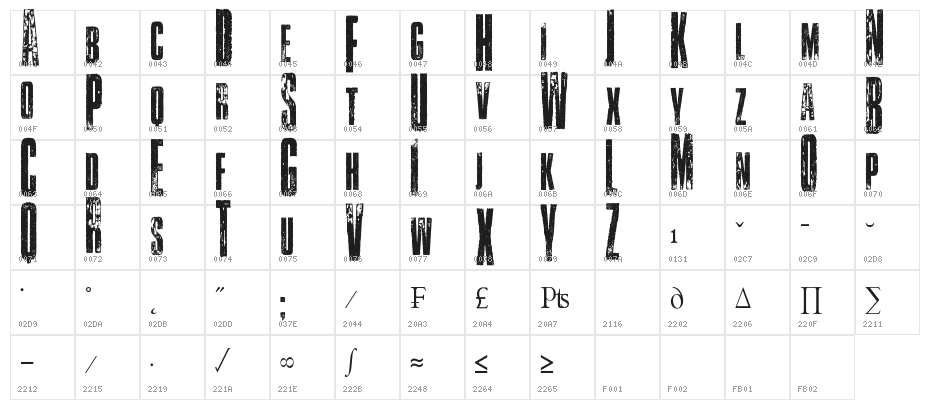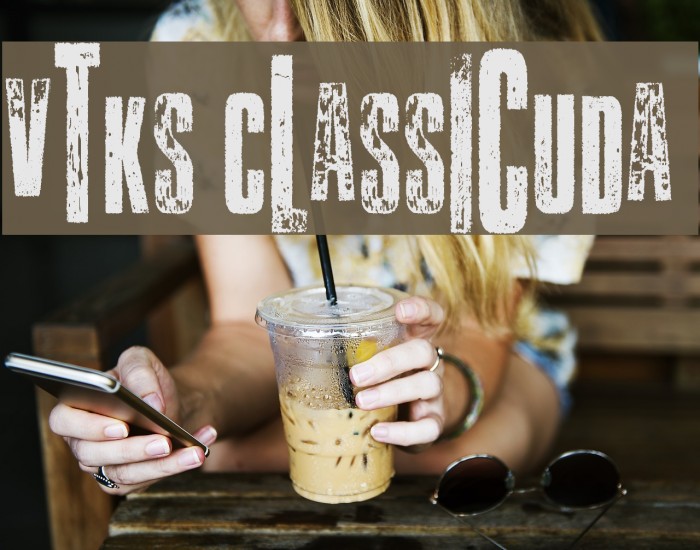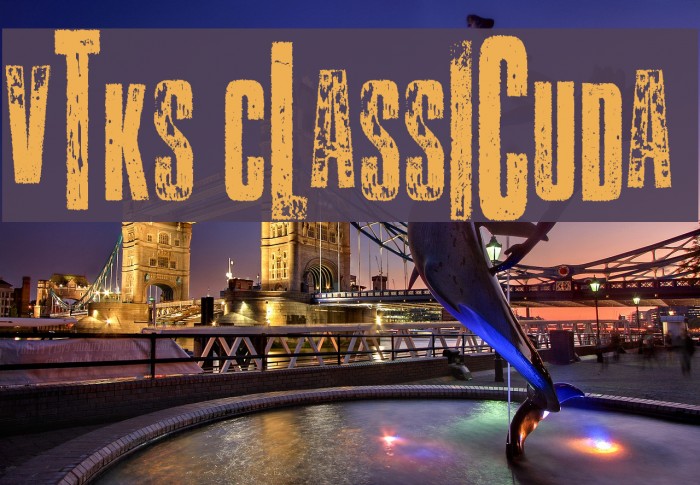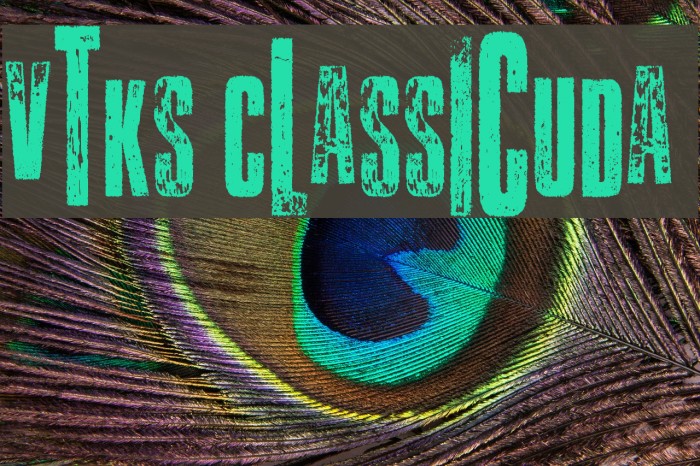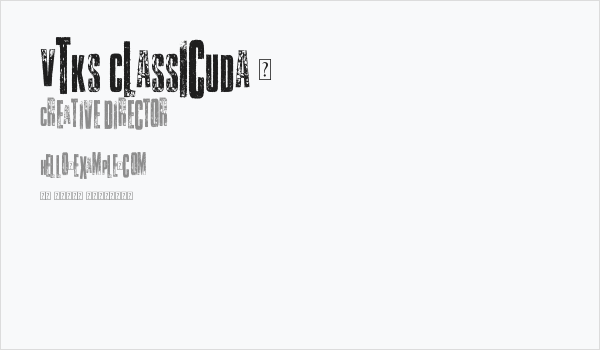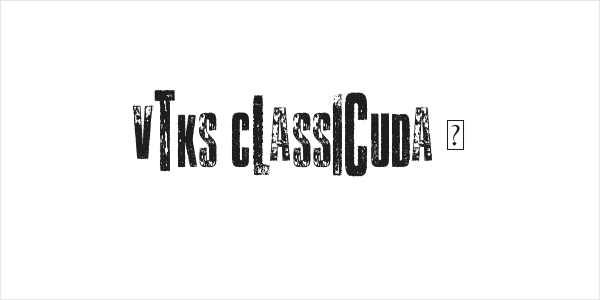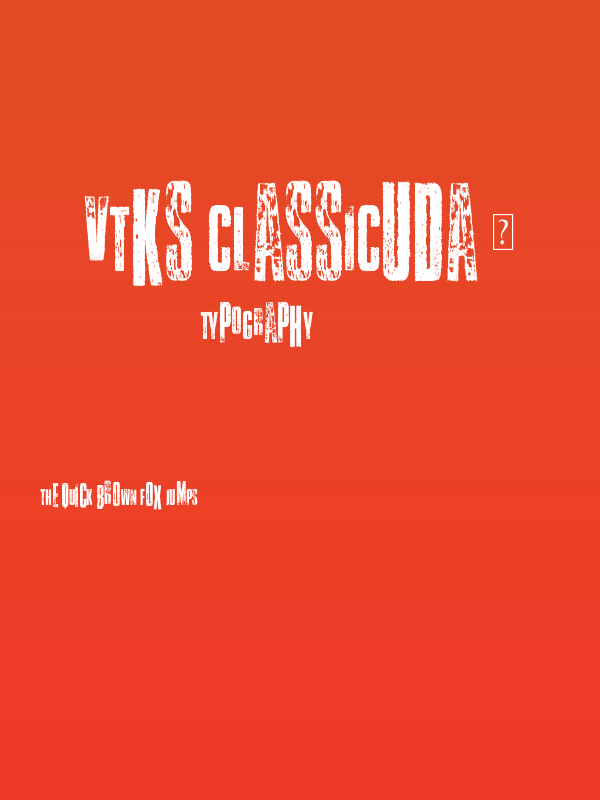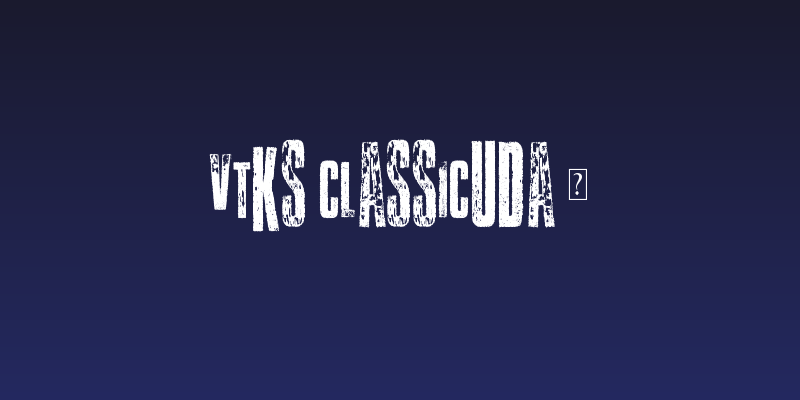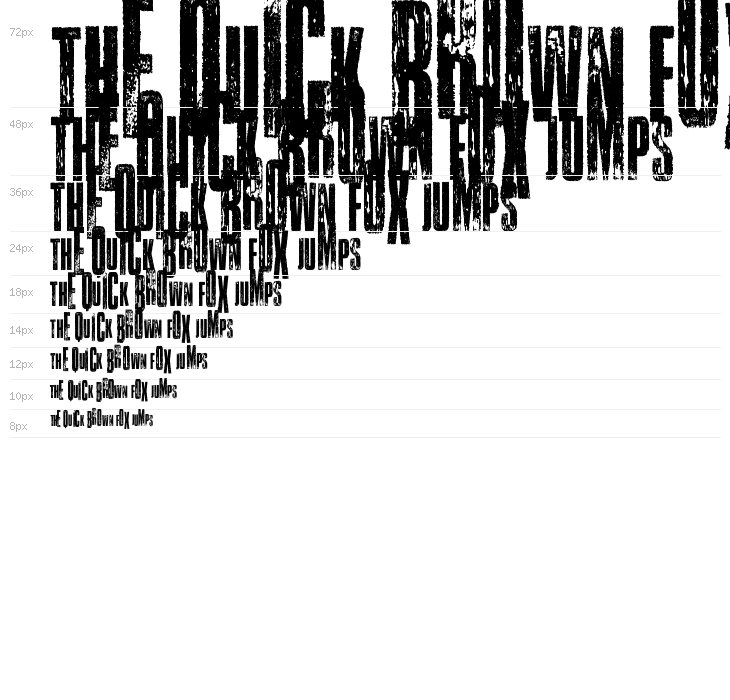
Vtks Classicuda 3 Font
Vtks Classicuda 3 Description
This font features a distressed, grunge style with a bold and impactful appearance. The characters are heavily textured, giving them a worn and rugged look. The uppercase letters are prominent and stand out with their thick strokes and uneven edges, creating a sense of urgency and rawness. The font's unique style is reminiscent of vintage posters or urban street art, making it ideal for projects that require a bold statement. The texture varies across the characters, adding to the overall dynamic and edgy feel.
| Overall Style | Grunge, Vintage |
| Proposed Projects | Ideal for music album covers, urban-themed posters, edgy branding, and streetwear designs. |